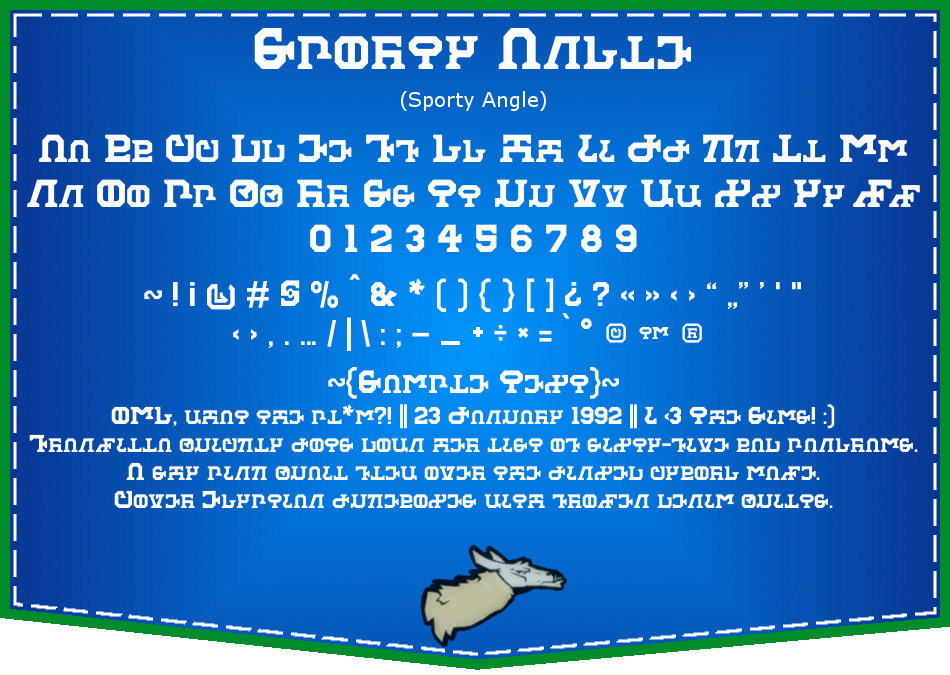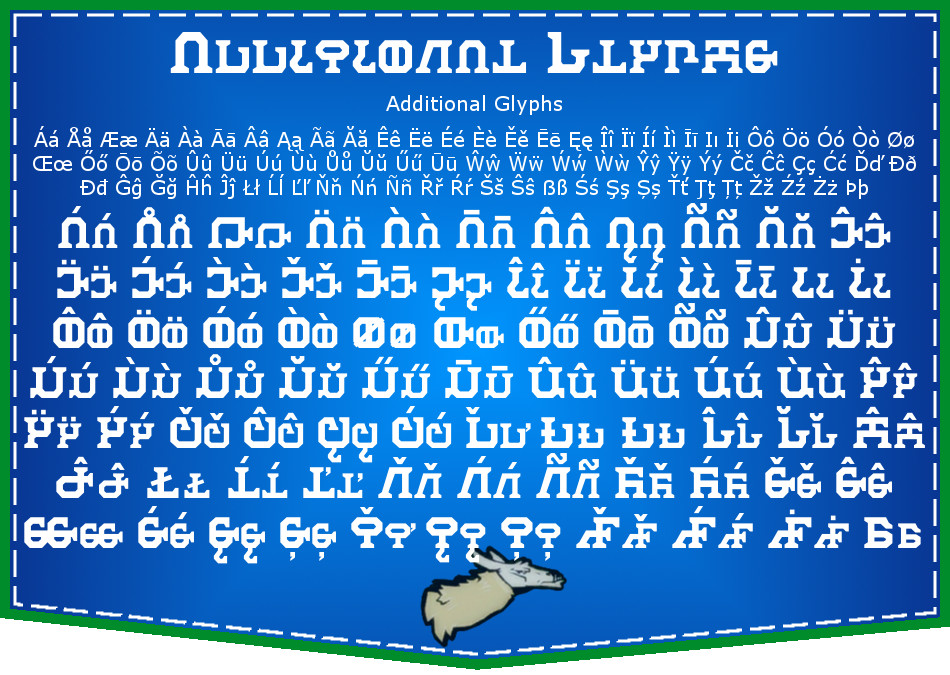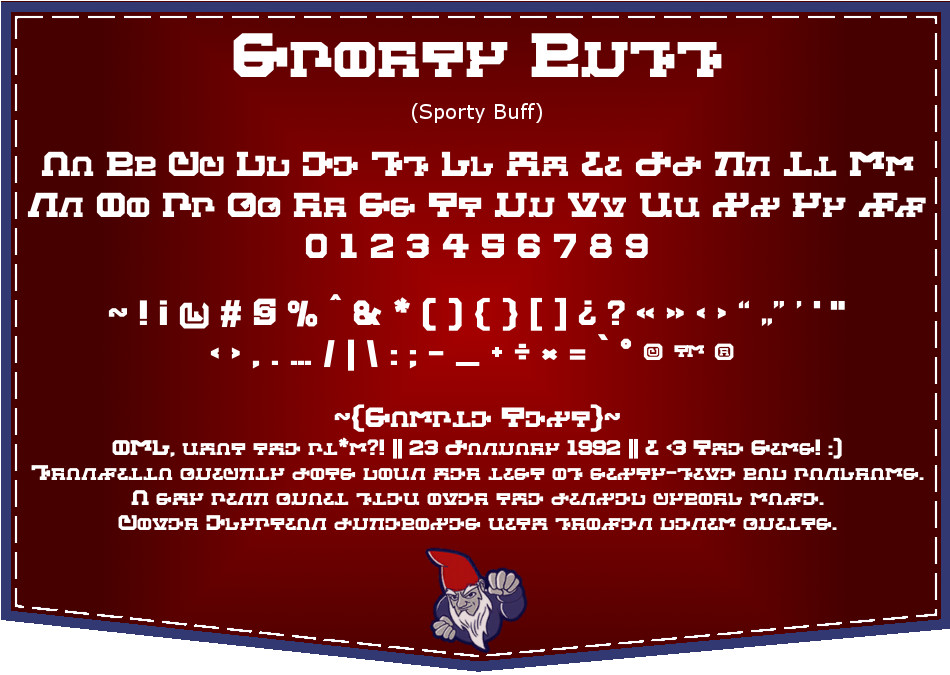
Sporty Simlish Fonts
Sporty Angle: This is an updated (sharper, clearer) version of an older font of mine, UniLlama . I finally learned how to smooth out the edges, so now it looks far less gross up close!
Here's a small comparison:
Sporty Spice:
Sporty Buff: This is a wider, bolder version of Sporty Spice.
Sporty Nimble: This is a sans-serif version of Sporty Spice.
Sporty Greek: This contains the SimGreek letters in the styles of each of the other four fonts. Each font contains these characters in their own style, but I made this font separate so that they can be typed out more easily.
The sample text at the bottom of the preview pic reads:
OMG, what the pl*m?! || 23 January 1992 || I <3 The Sims!
Franzilla quickly jots down her list of sixty-five bad pangrams.
A shy pink quail flew over the jinxed cyborg maze.
Cover Egyptian jukeboxes with frozen denim quilts.